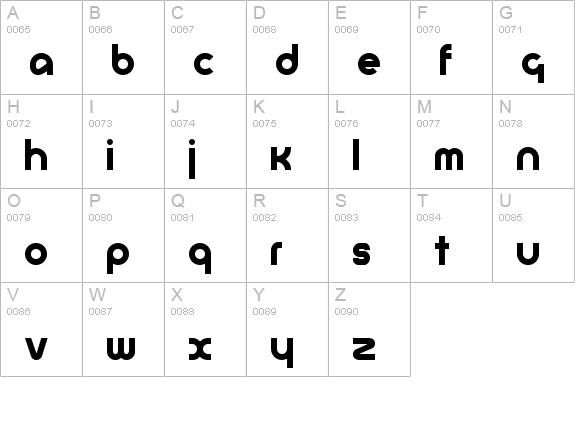
BayerExperiment font is a modern and stylish typeface that exudes sophistication and creativity. With its sleek lines and contemporary design, this font is perfect for a wide range of projects, from branding to editorial design. The unique geometric shapes and clean letterforms of BayerExperiment font make it a versatile choice for any design project. One of the best things about BayerExperiment font is that it is completely free to use. Whether you're a designer looking to add a fresh touch to your work or a business owner in need of a unique font for your marketing materials, BayerExperiment font is the perfect choice. You can easily download this font for free at FontsMarket.com, making it accessible to everyone looking to elevate their design projects. Overall, BayerExperiment font is a must-have for anyone looking to make a bold statement with their typography. Its modern aesthetic and versatility make it a valuable addition to any designer's toolkit. Download BayerExperiment font today and start creating stunning designs that stand out from the crowd.